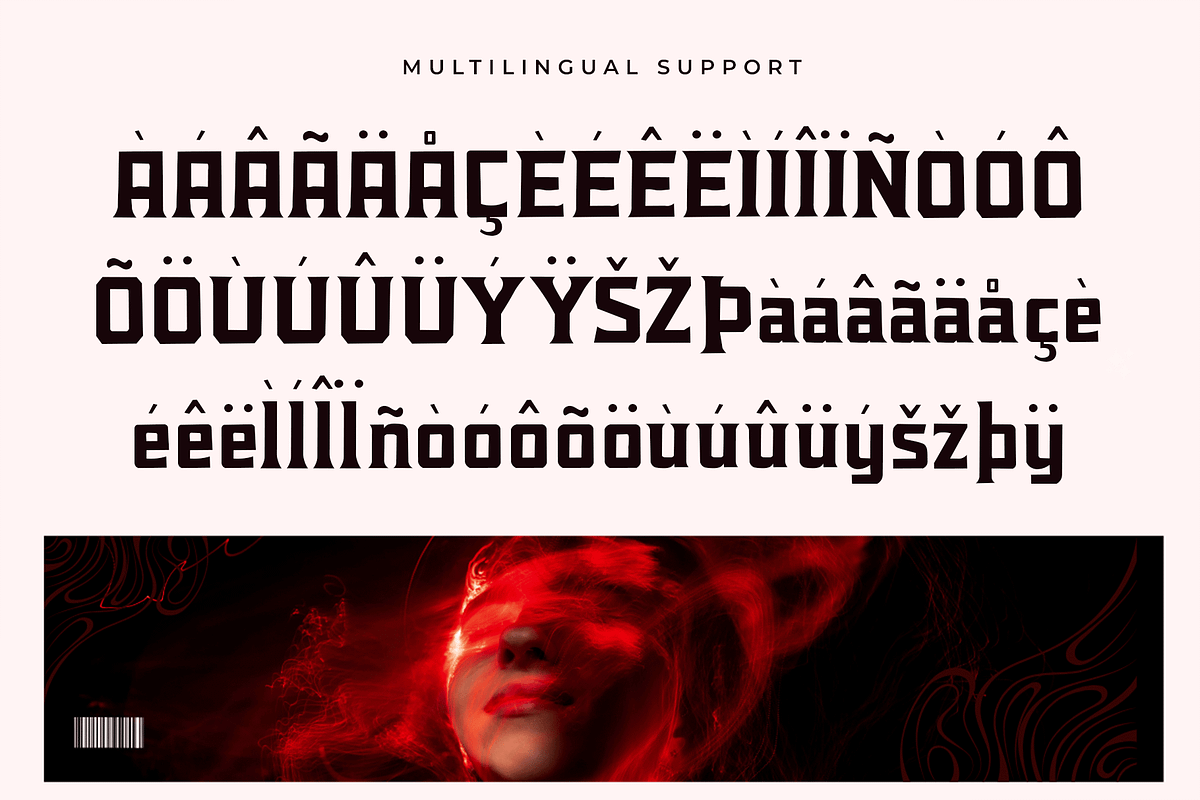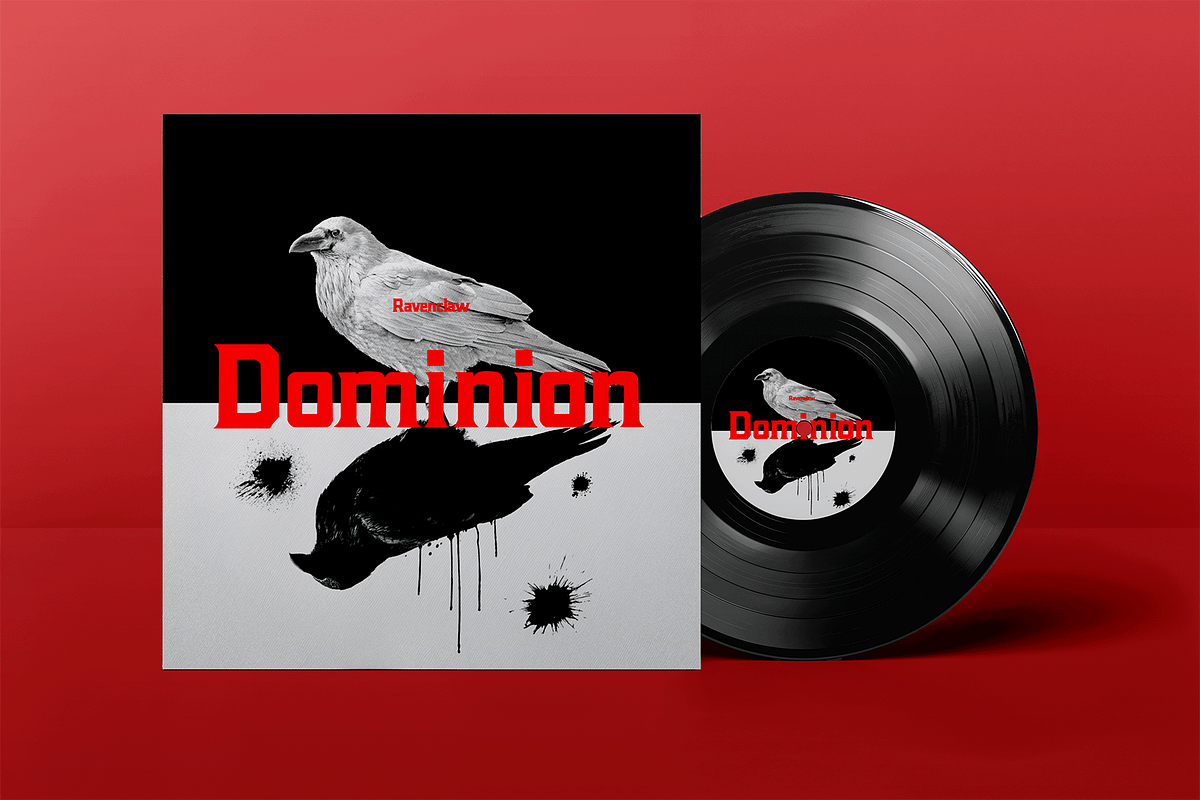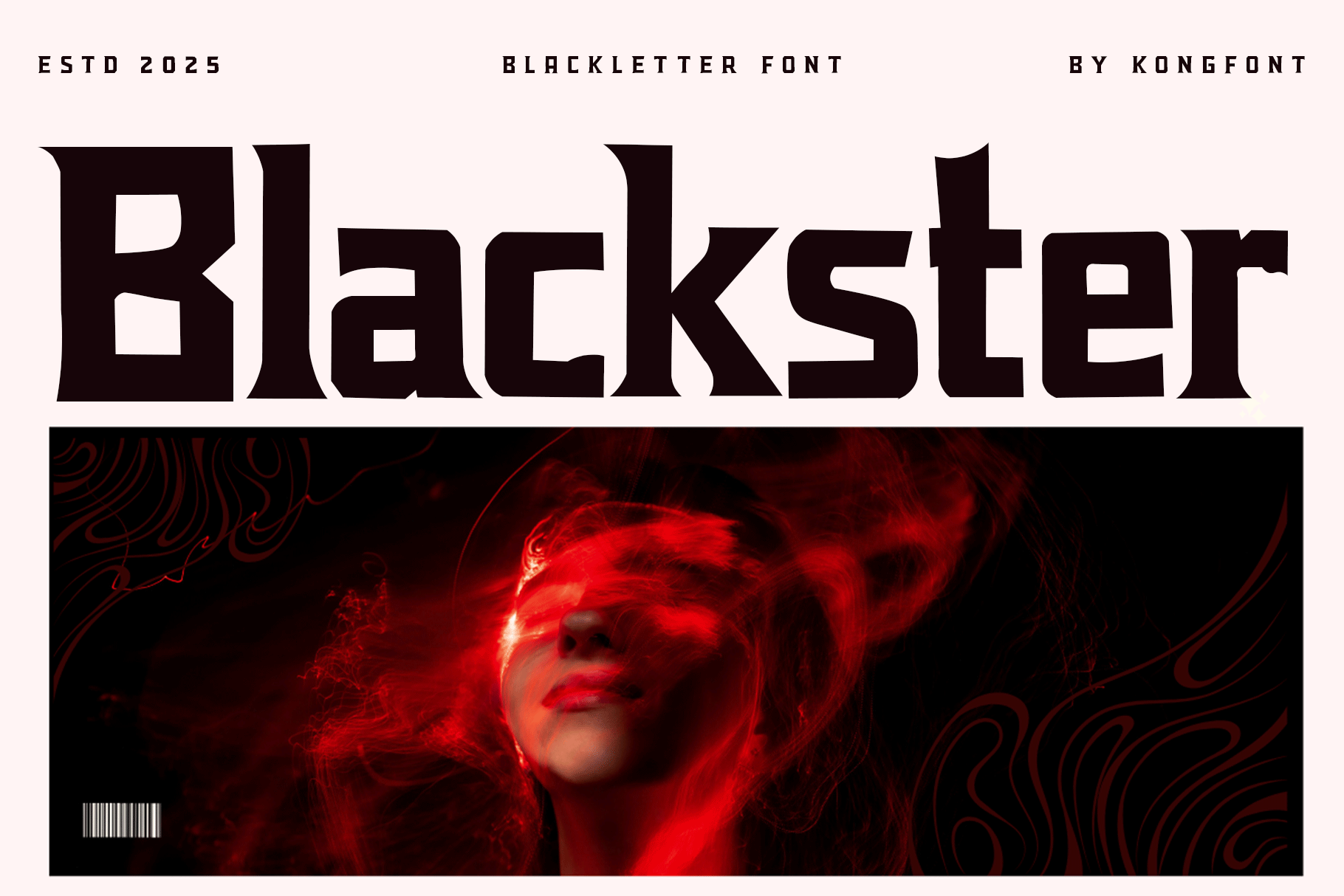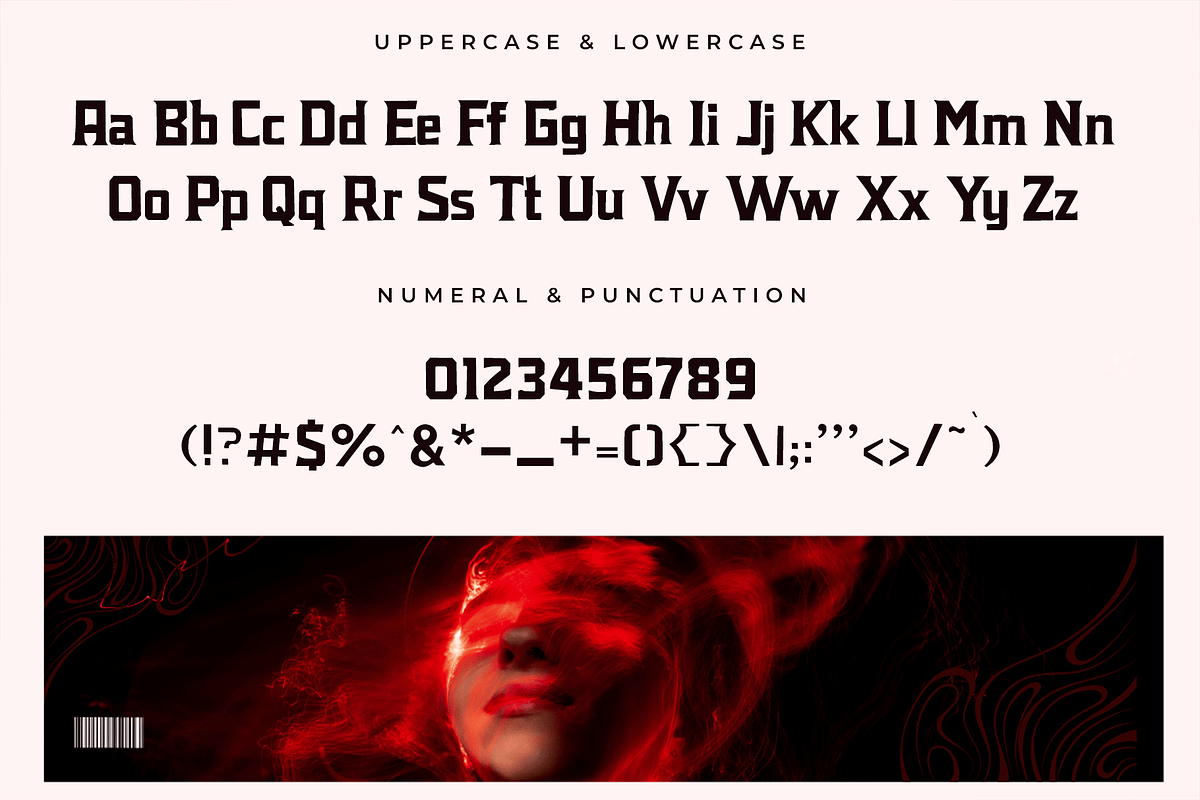
Blackster – Blackletter Font
Introducing Blackster, a bold blackletter font that combines traditional Gothic elegance with a modern design approach. Its sharp angles, dramatic strokes, and ornamental flair make it perfect for projects that demand strength, heritage, and impact.
Whether you’re designing vintage posters, striking logos, tattoo-inspired graphics, or medieval-themed artwork, Blackster delivers a bold and authoritative presence. Its intricate yet balanced design makes it versatile enough for both display and branding purposes.
The font includes uppercase, lowercase, numerals, punctuation, and multilingual support, ensuring flexibility across a wide range of creative projects. With Blackster, your designs will exude timeless character and commanding style.